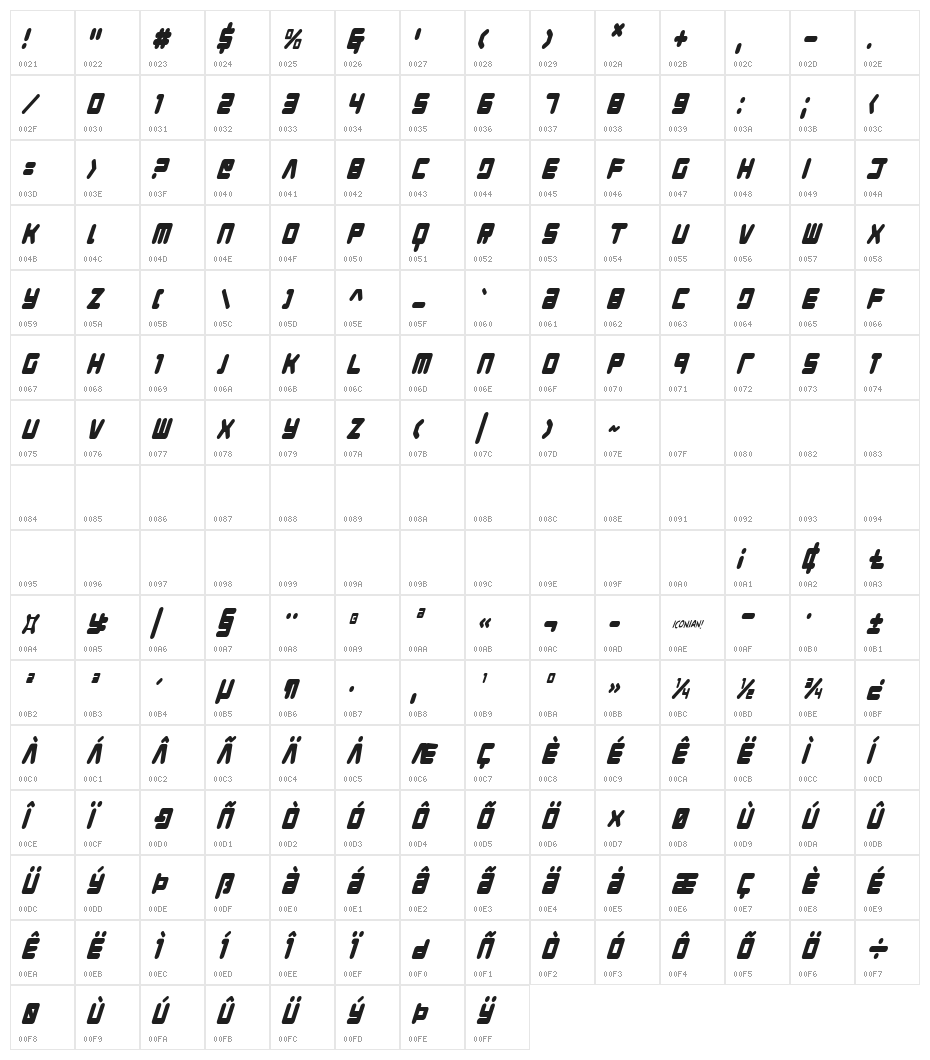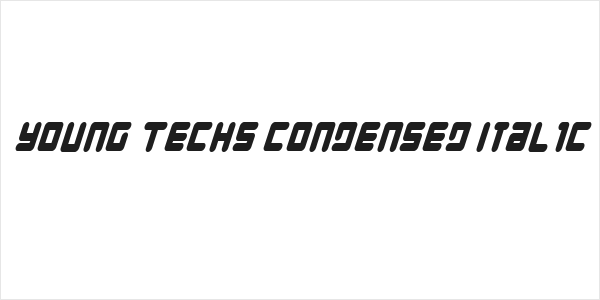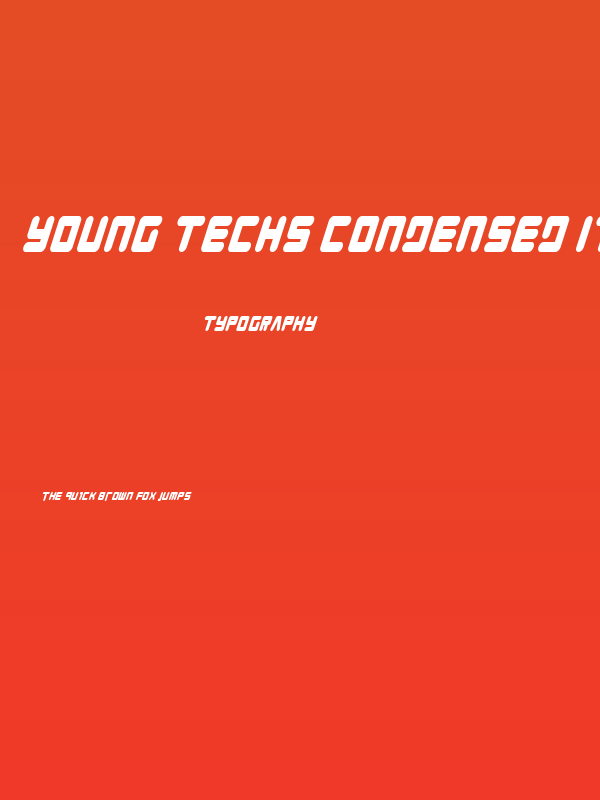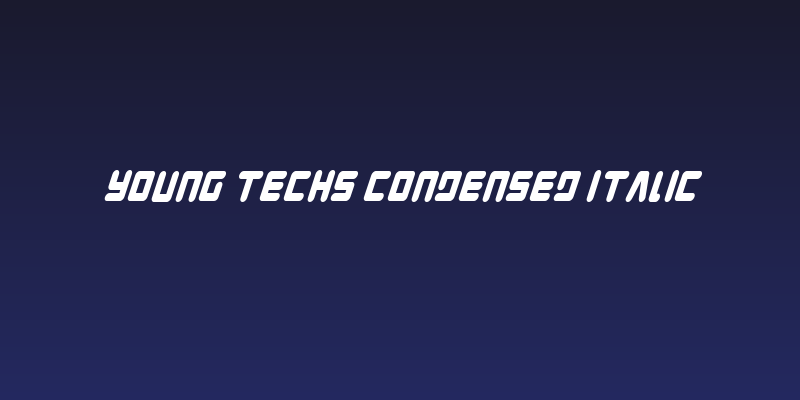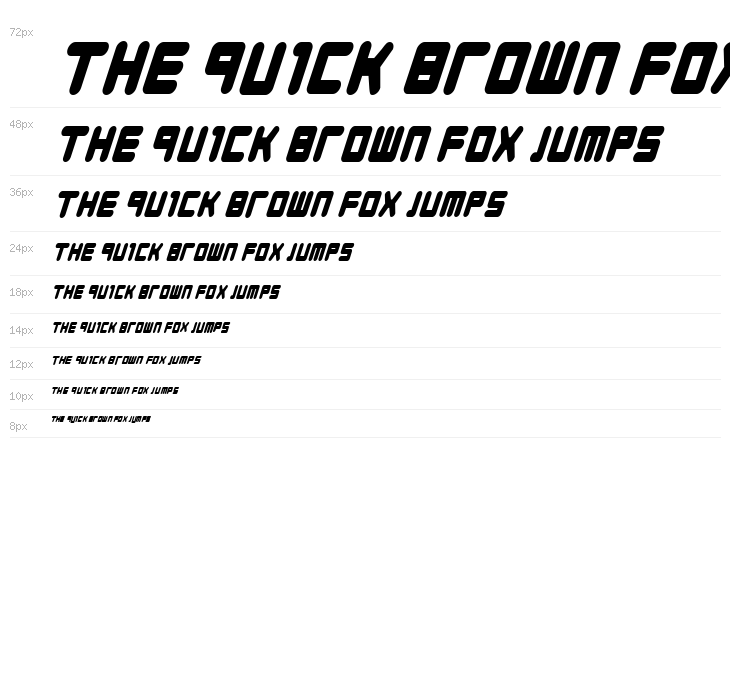
Young Techs Condensed Italic Font
Young Techs Condensed Italic Description
This font features a modern, condensed style with a distinct italic slant, giving it a dynamic and forward-moving appearance. The characters are bold and rounded, with a uniform stroke width that maintains consistency across letters and numbers. The design is sleek and futuristic, making it ideal for tech-related projects. The uppercase and lowercase letters share a similar structure, enhancing readability. The numerals are clear and bold, matching the overall aesthetic. Special characters are included, maintaining the same stylistic approach, ensuring versatility in various design contexts.
| Use Case | Headlines, Logos, Digital Interfaces |
| Proposed Projects | Ideal for technology branding, futuristic posters, digital interfaces, and modern advertising campaigns. |